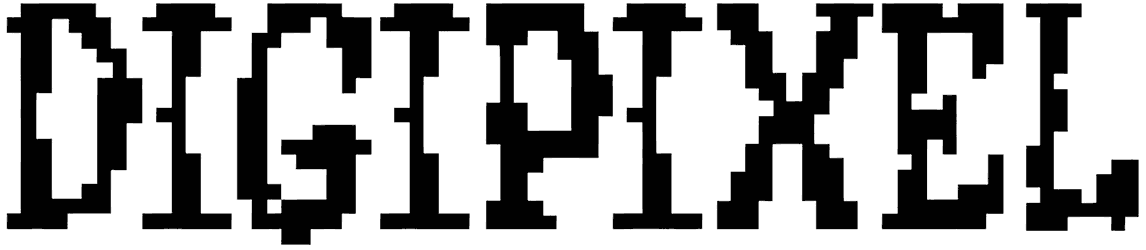
Digipixel Font
Digipixel font has a retro digital personality where the letters feel inspired by early screens, pixel graphics, and classic arcade interfaces. Its blocky style brings a nostalgic tech atmosphere, making words feel like they belong in an old-school game, futuristic dashboard, or digital experiment.
Use this pixel font for gaming designs, app concepts, pixel art projects, tech branding, streaming graphics, or cyber-inspired posters. Dark backgrounds, neon colors, grid patterns, glowing effects, and pixel textures will enhance its digital character and create a strong nostalgic visual style.